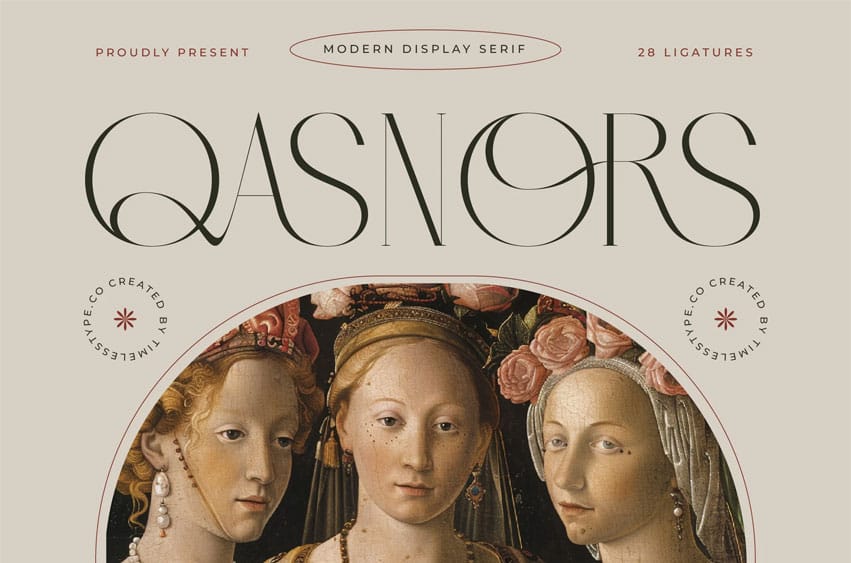
Qasnors Font is an elegant modern display serif font crafted with ultra-fine contrasts, elongated forms, and sophisticated high-fashion styling. Its luxurious curves and graceful thin strokes evoke a refined editorial aesthetic, making it perfect for magazine layouts, couture branding, perfume packaging, art posters, and premium visual identities. The font carries a timeless, aristocratic aura inspired by classical beauty and contemporary minimalism.
Equipped with 28 exquisite ligatures, Qasnors offers expansive creative flexibility for crafting stylish headlines, expressive logos, and artistic typographic compositions. Its delicate balance of sharp precision and smooth ornamental flow gives designers the ability to produce refined, beautifully poised designs that feel both modern and timeless.